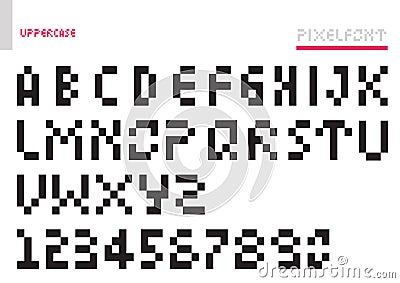
Block Pixel Retro Game QR Code Alphabet Letter Set Simple Font Vector Design Template For Identity Streamer And Application #144421225
Alphabet letter set for gaming channel, your business, application and more. Modern retro look.